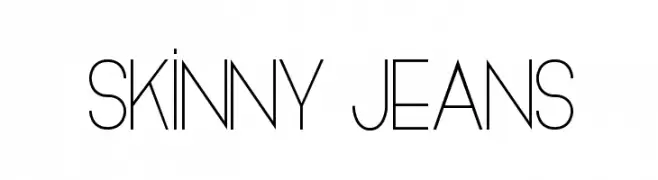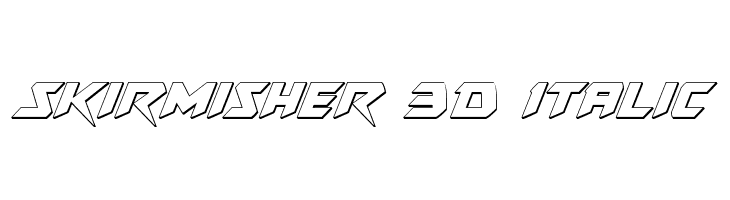
A sleek, modern font with thin, elongated letterforms for a sophisticated look.
A playful, narrow handwritten font with consistent strokes.
A tall, slender, and italicized font with a dynamic and modern style.
A playful, bold outline font with a whimsical and energetic style.
A bold, playful font with a zebra-like pattern and strong contrast.
A playful, narrow handwritten font with a casual and friendly style.
A bold, geometric font with a futuristic, stencil-like design.
A bold, angular font with a futuristic and aggressive style.
A bold, angular 3D font with a futuristic and dynamic style.
A bold, 3D italic font with sharp, angular edges and a futuristic look.